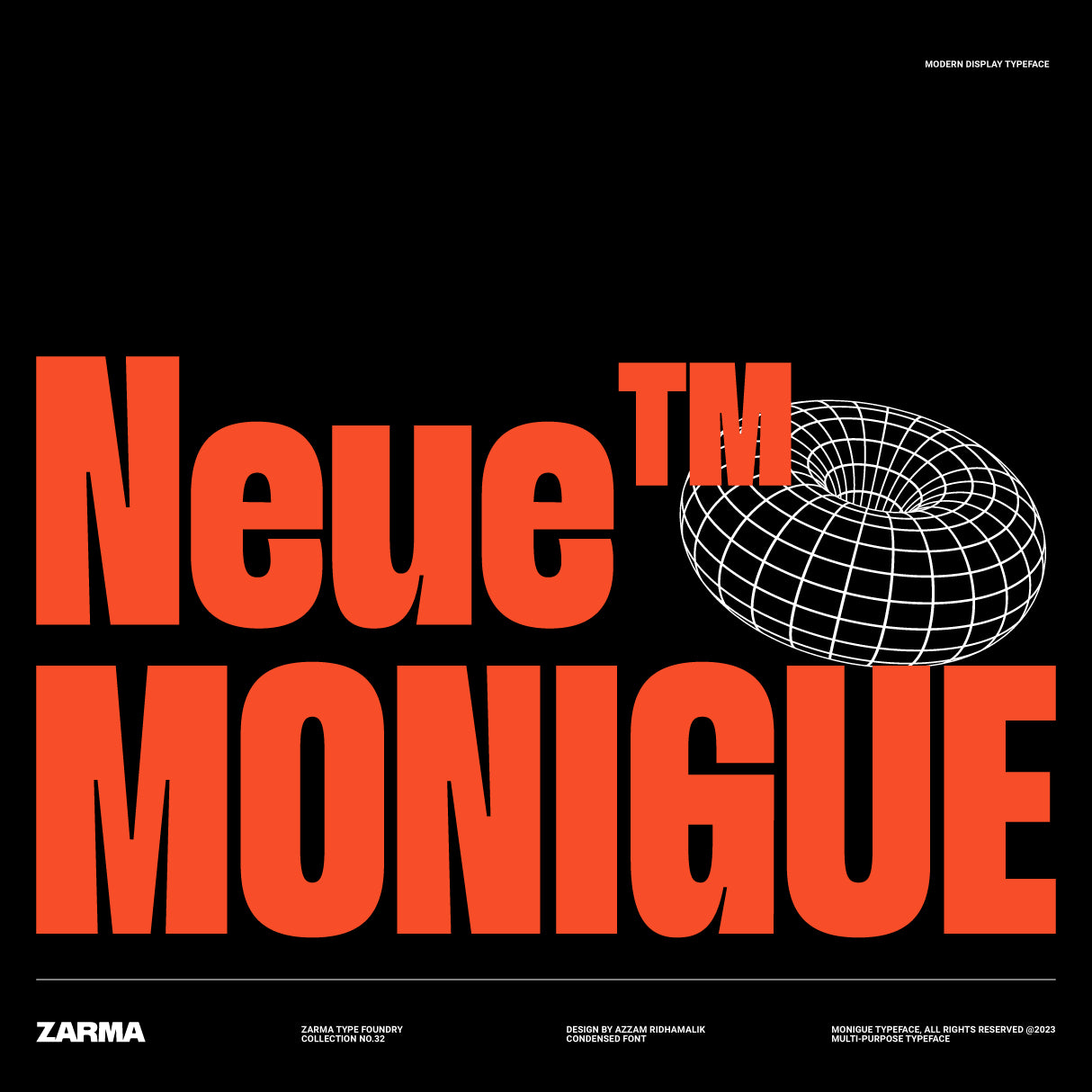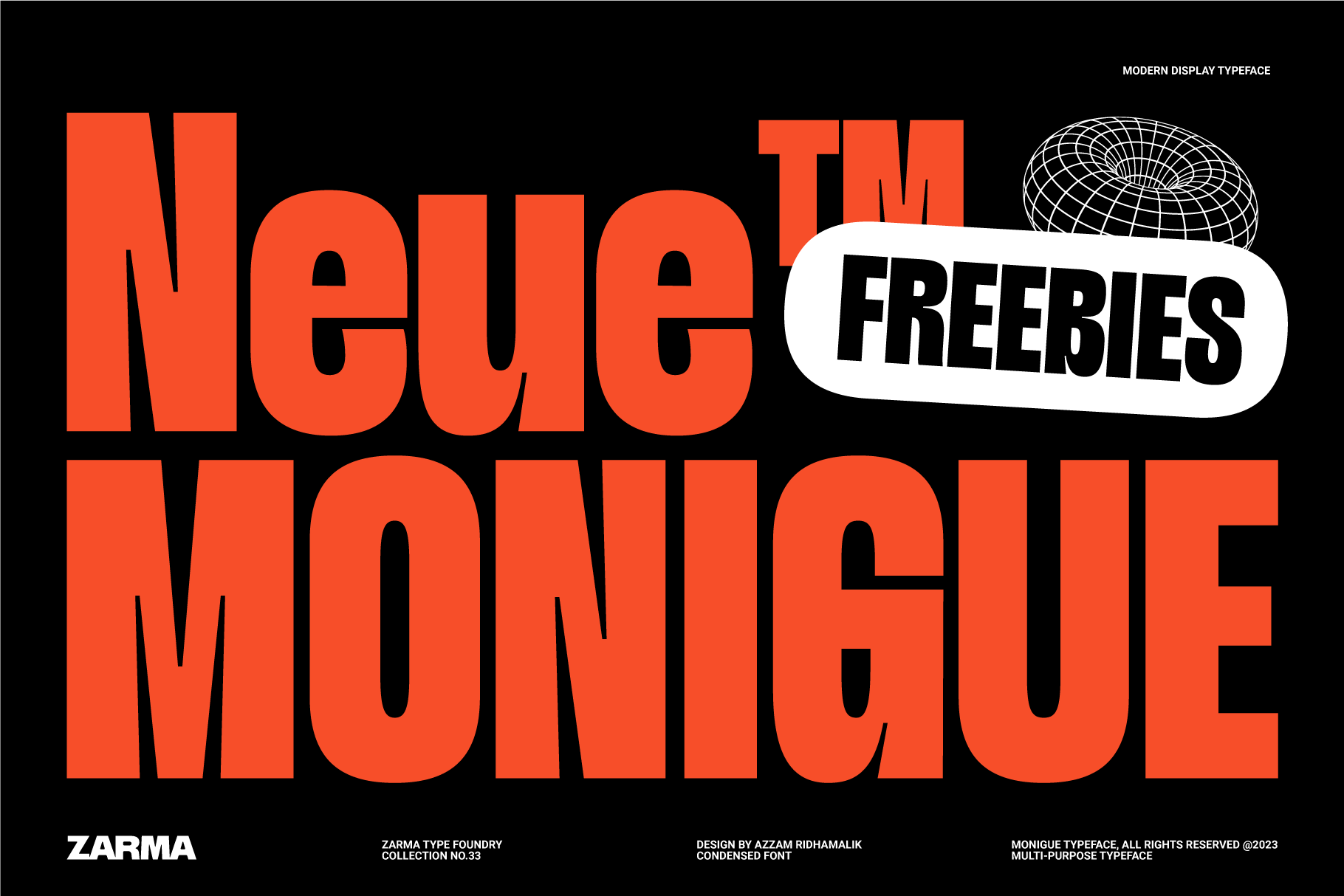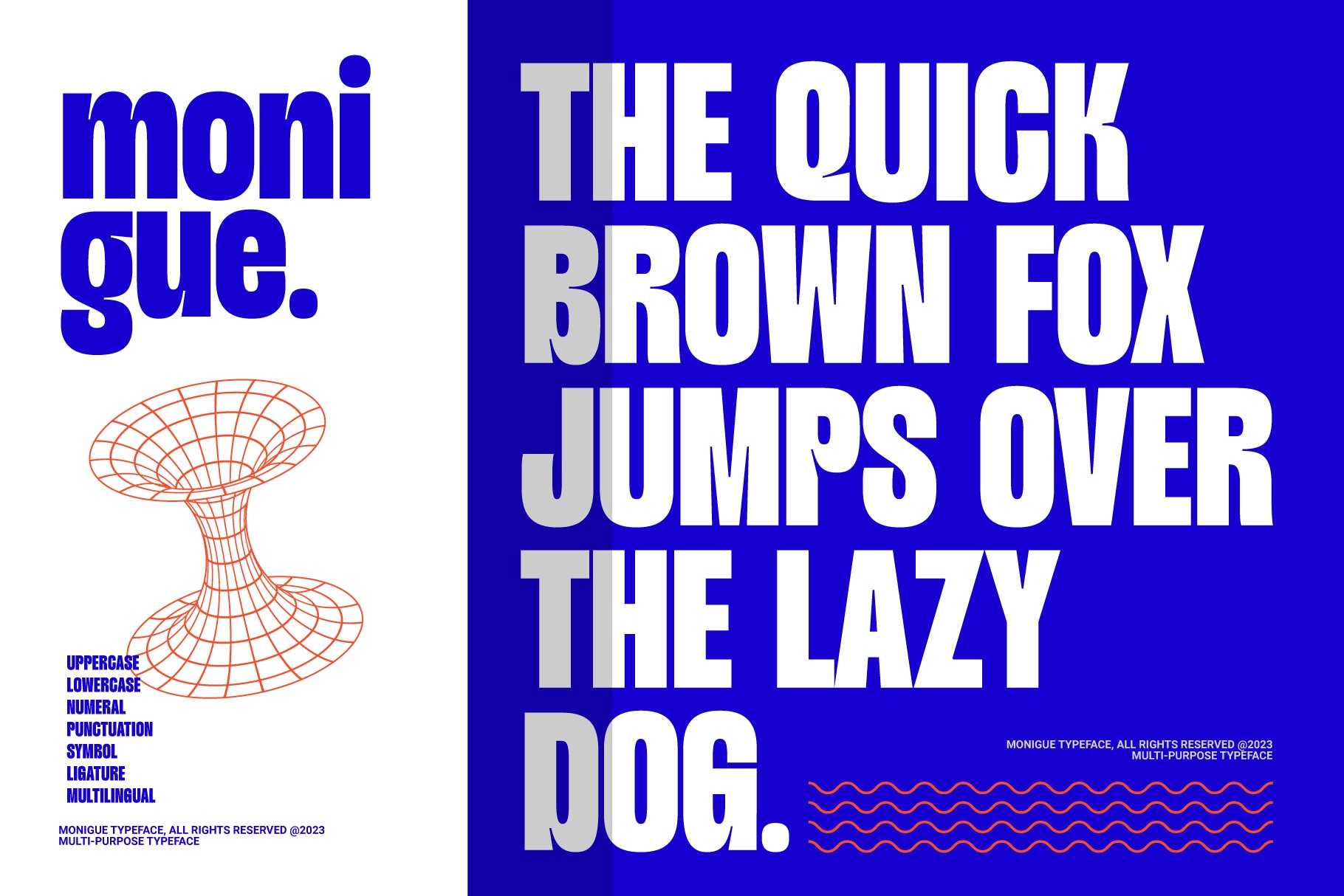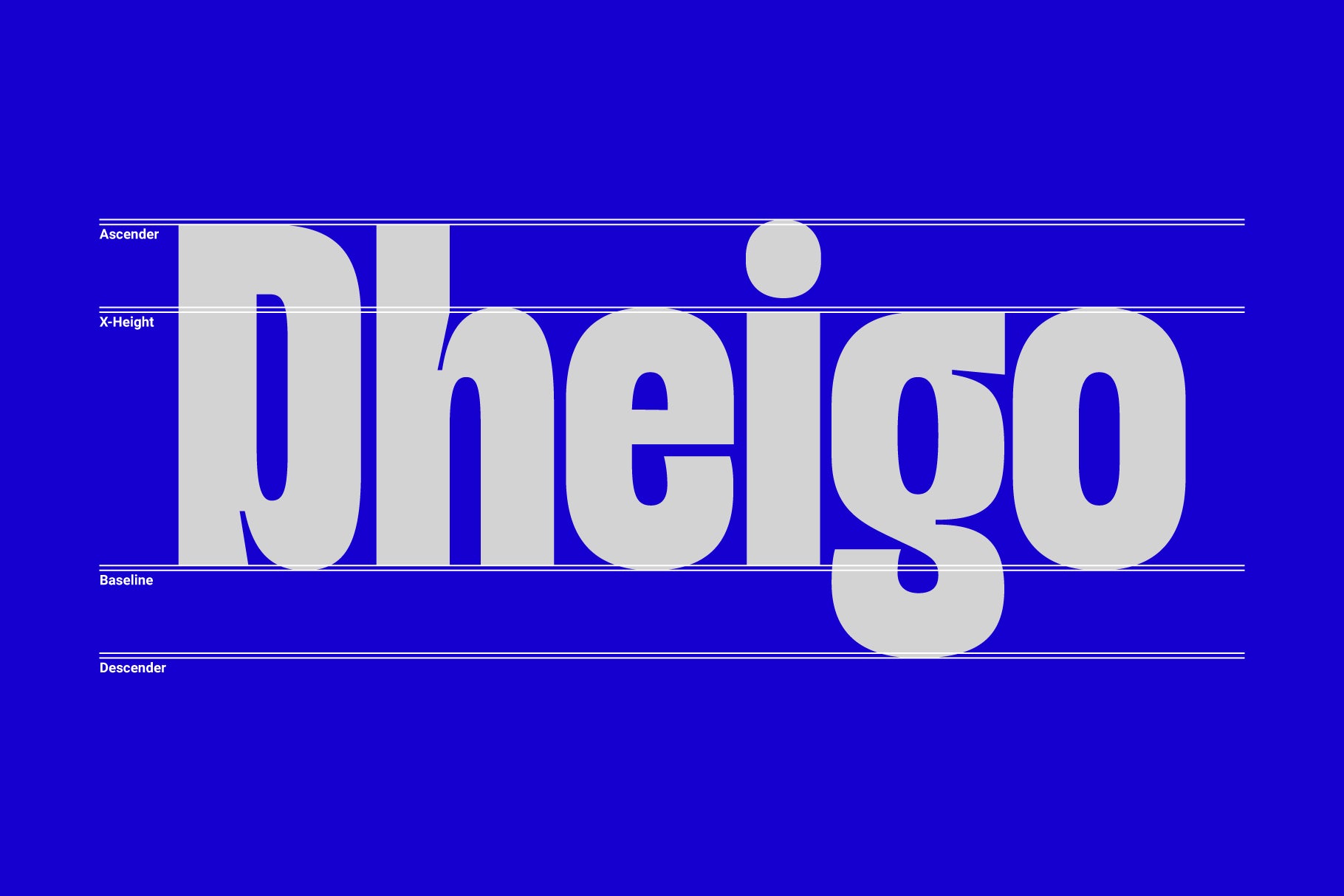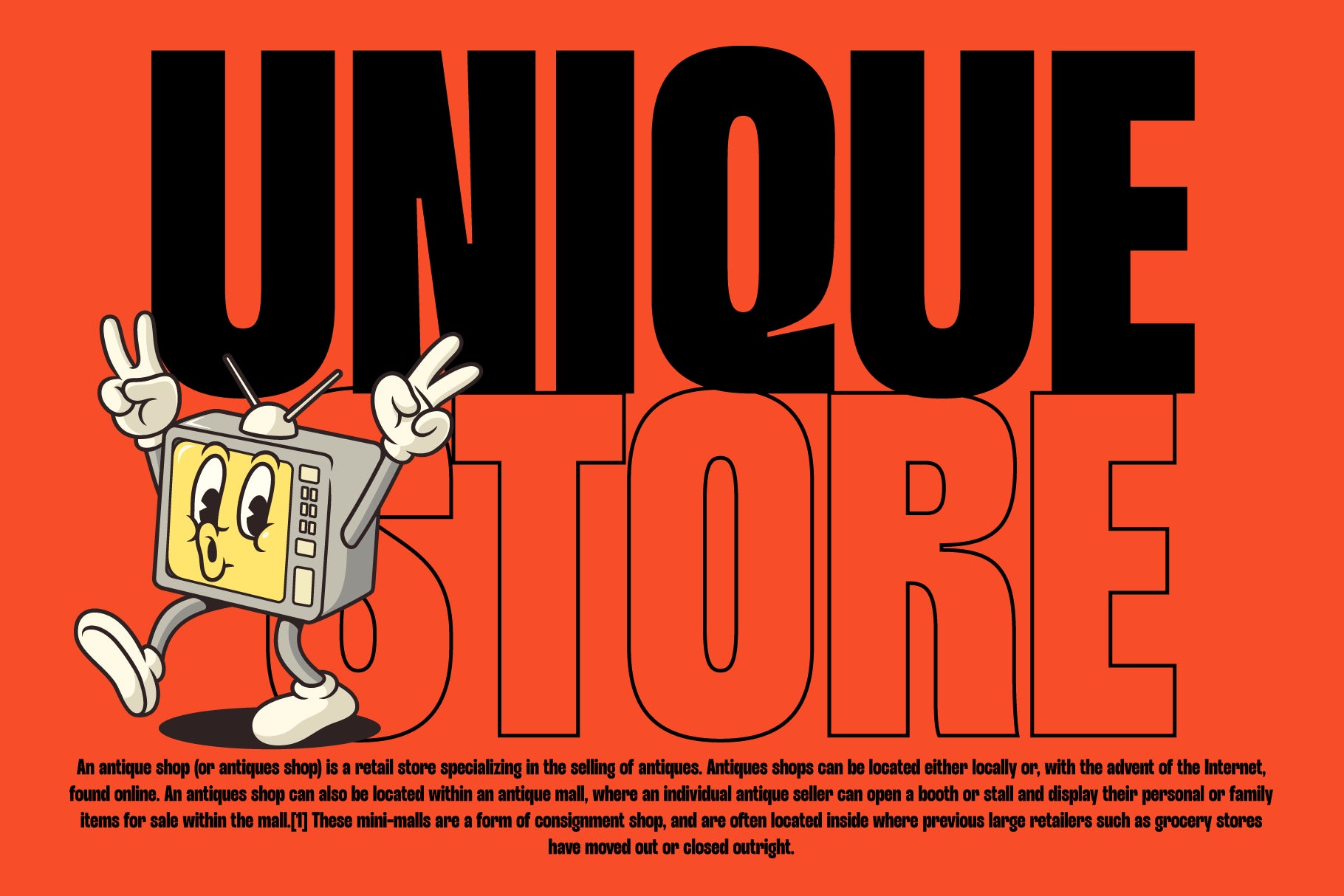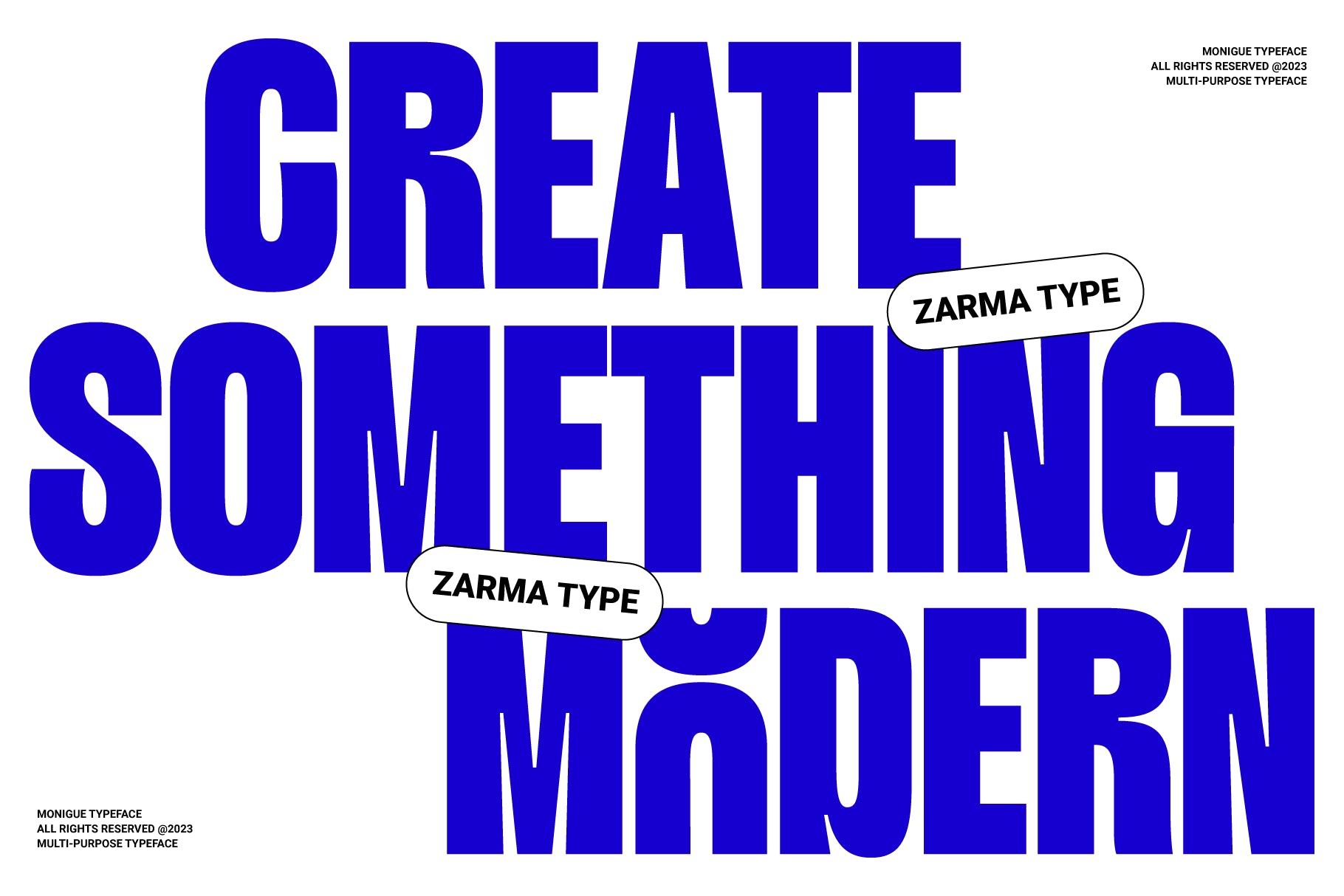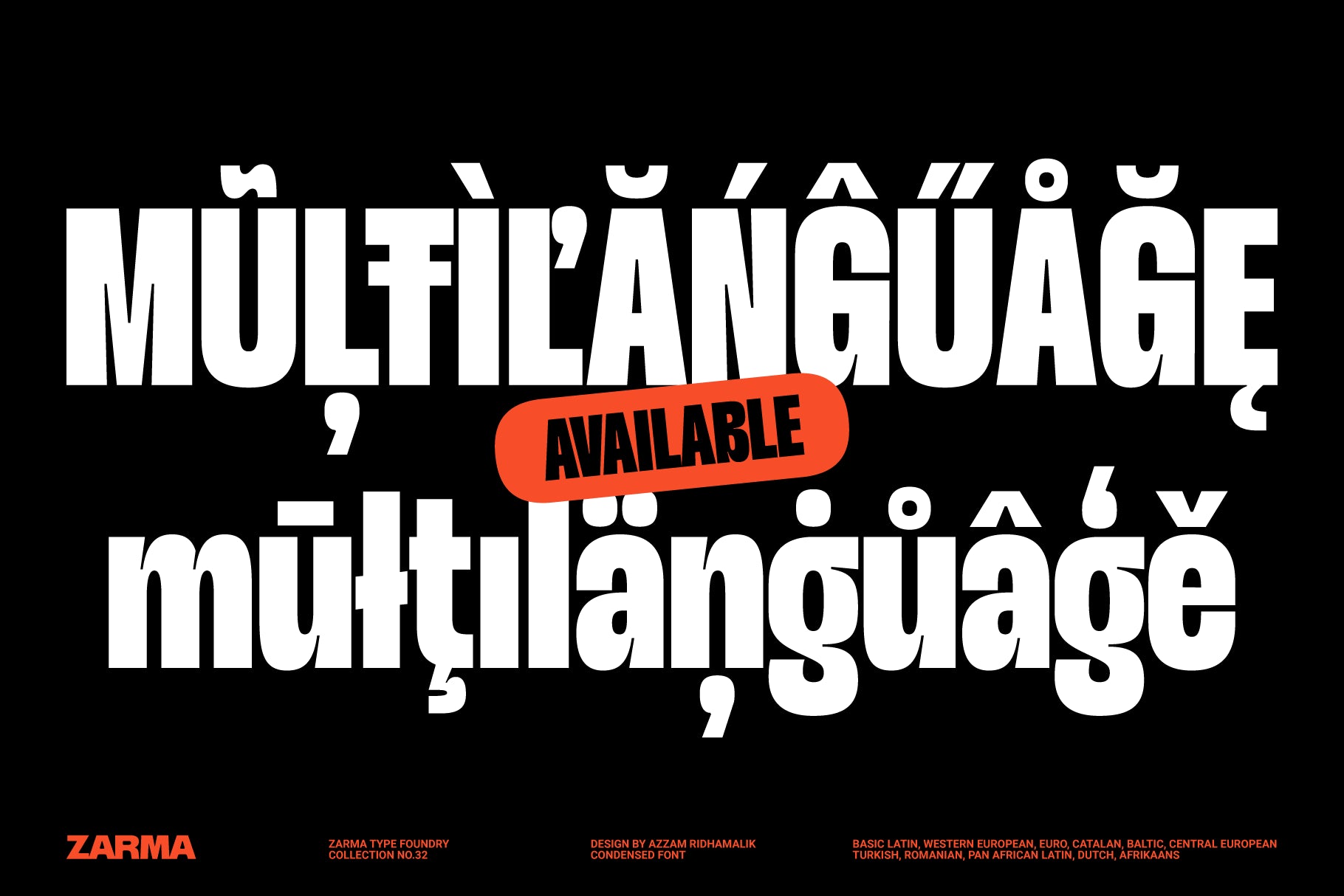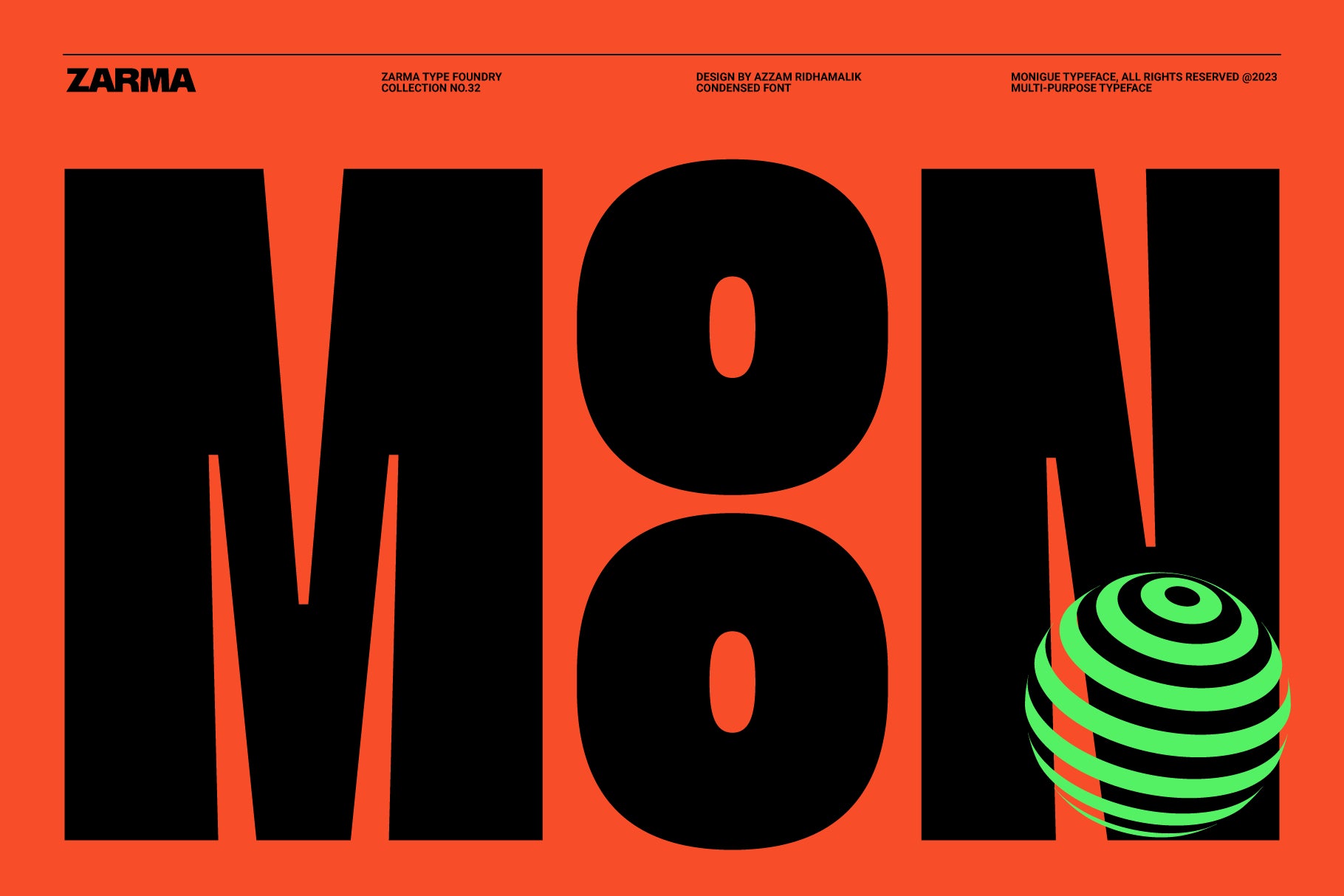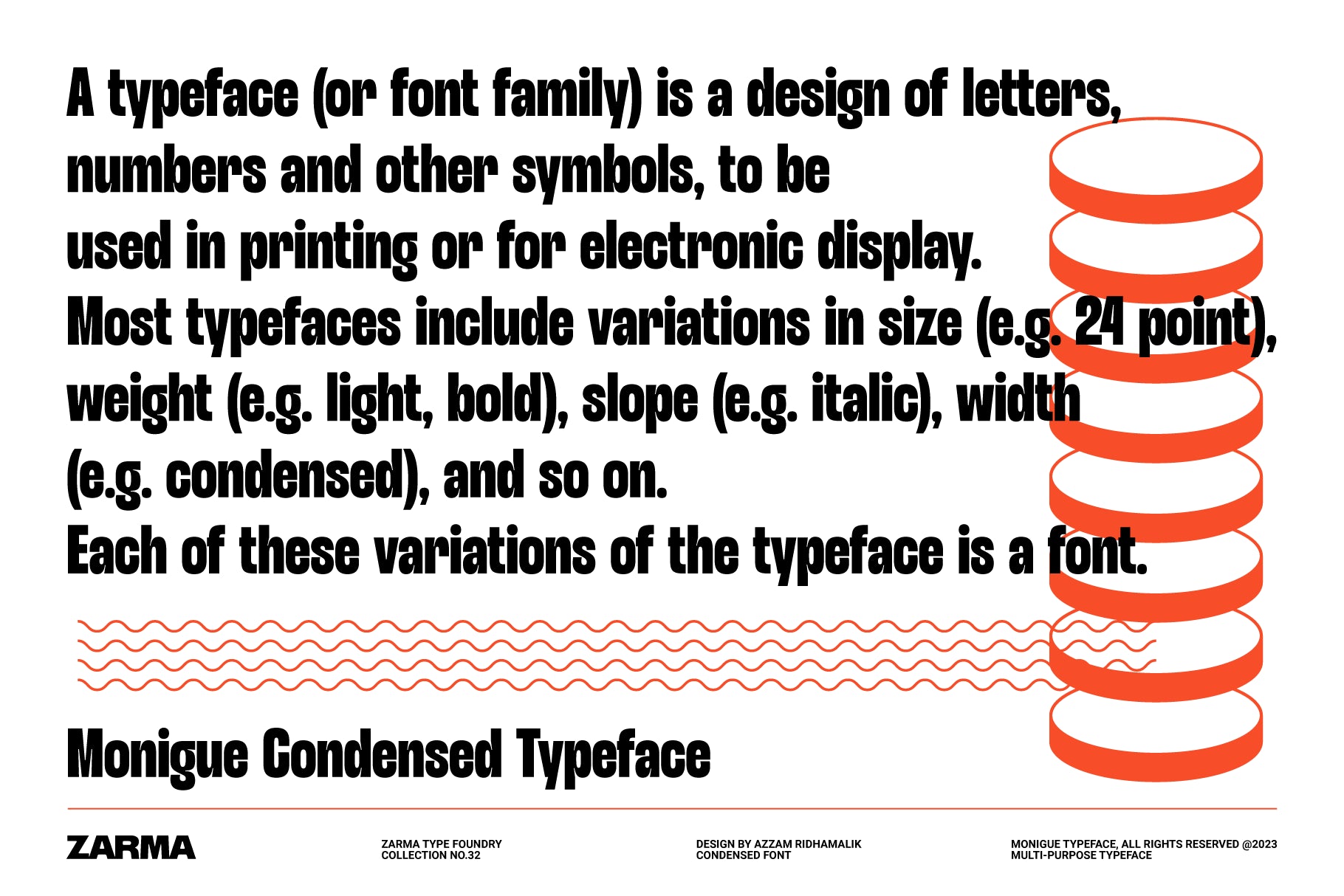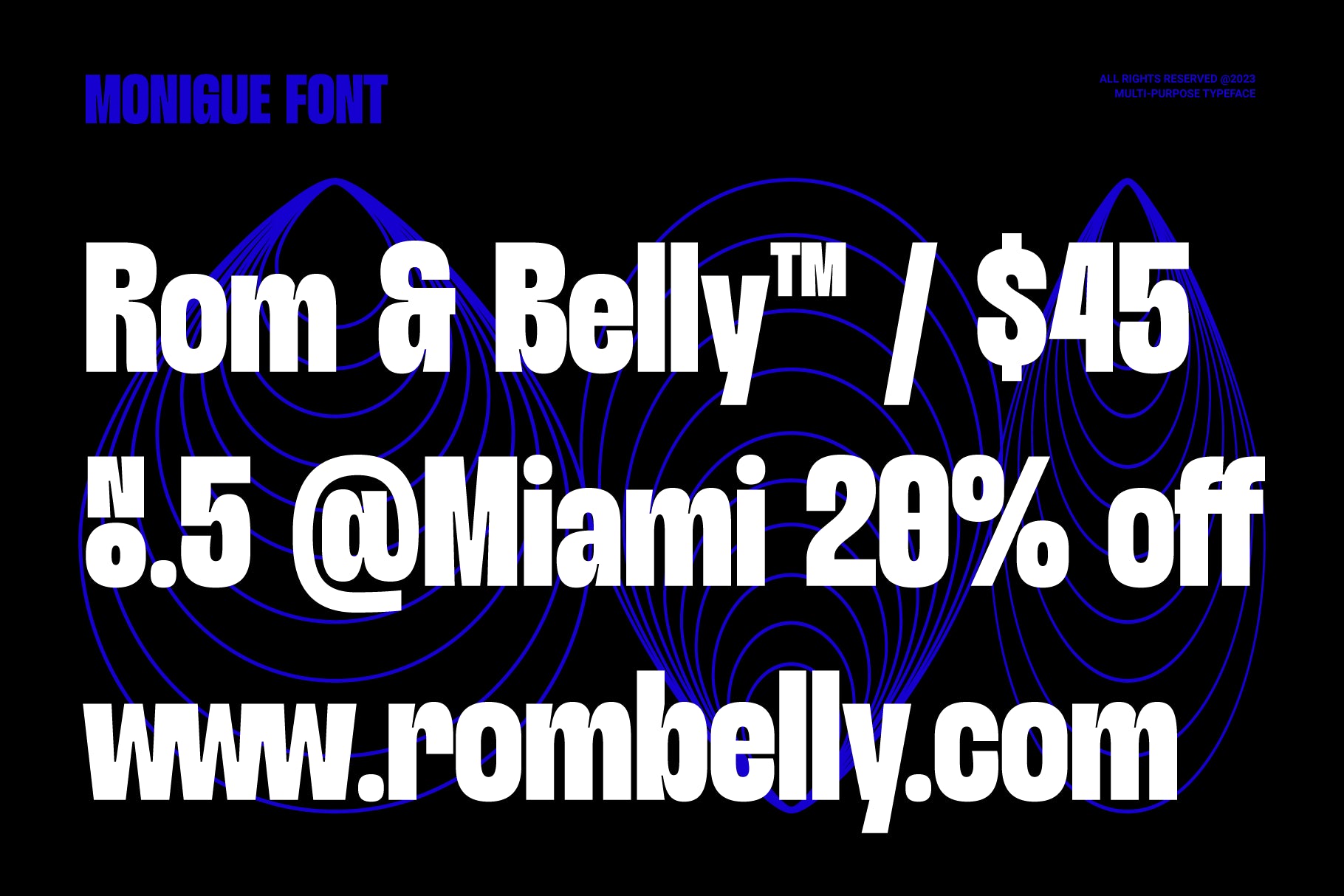
Monigue Font
Zarma Type
Monigue is a bold Condensed Sans Serif Font inspired by the sleek aesthetics of early 2000s design. With its strong, modern character, it's perfect for logos, posters, website headlines, editorial layouts, branding, and user interfaces that demand attention while maintaining exceptional readability.
Featuring uppercase and lowercase characters, numbers, punctuation, ligatures, OpenType features, PUA encoding, and 370+ glyphs with Extended Latin coverage supporting 88+ languages, Monigue delivers the versatility and global reach needed for impactful modern typography.
Monigue is a bold condensed sans serif font featuring uppercase and lowercase characters, numbers, punctuation, ligatures, and OpenType features. With over 370 glyphs and Extended Latin coverage for 88+ languages, it offers versatility and readability for various design applications.